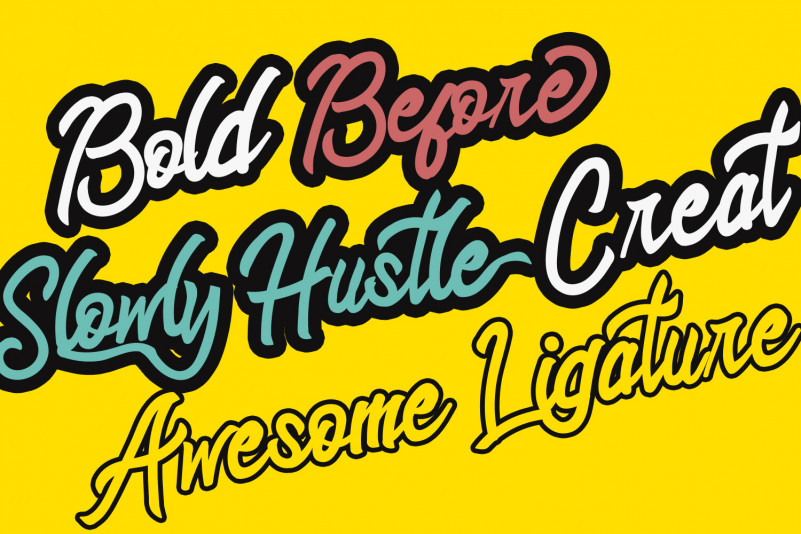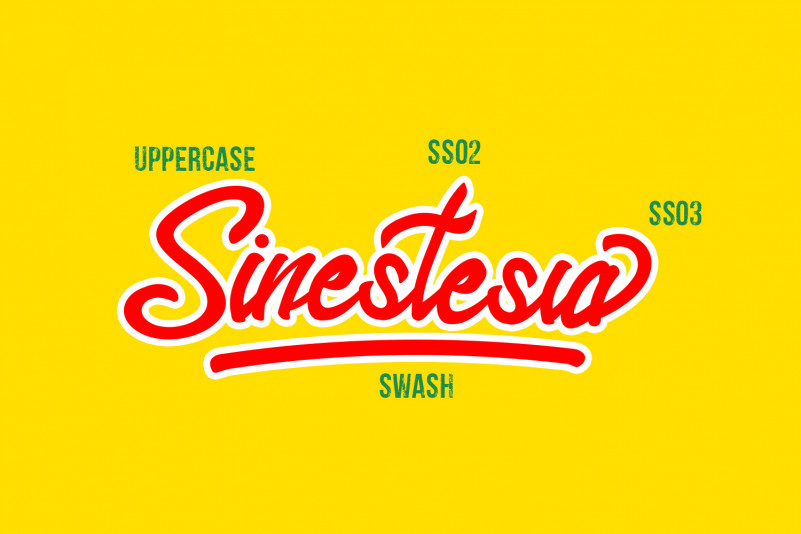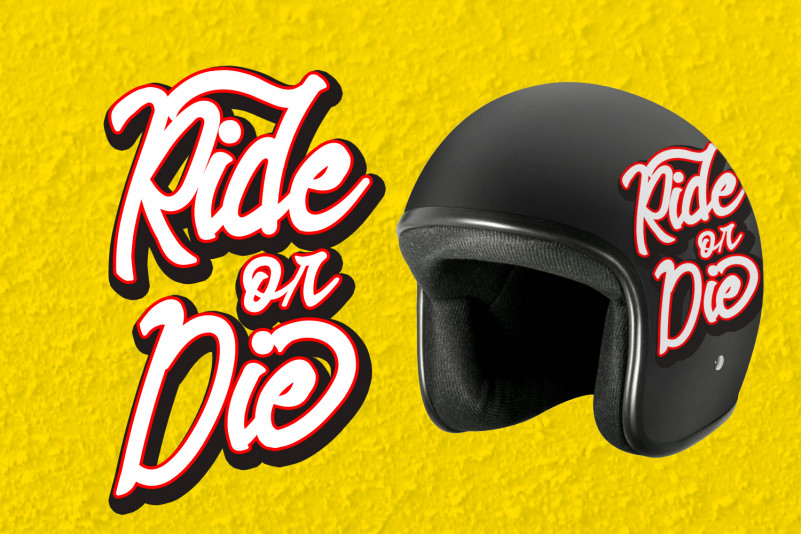
Sinestesia Script Font
Sinestesia Font A truly personalized handmade lettering that transformed into a font! This font has unique character and flow feel which is perfect to use in logotype / wordmark, badge, sign board, poster, headline text, apparel, wedding invitation, etc. You will find font in both OTF, TTF,WOFF formats. No special software is required to use Histeria Font, just install it as you normally do on your system.